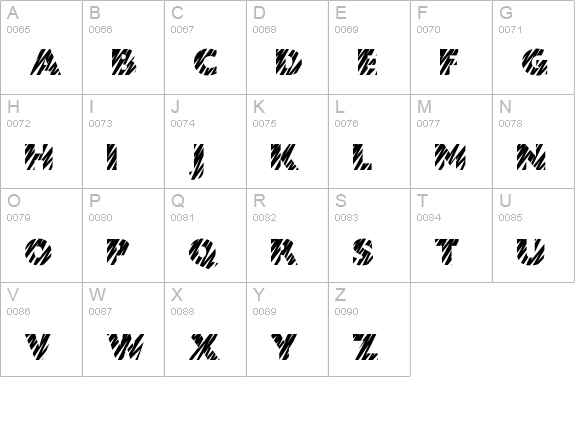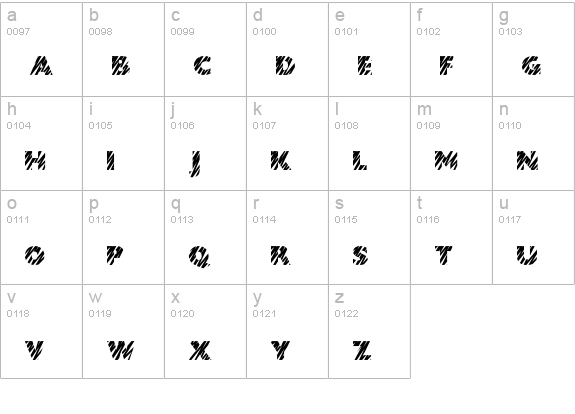
Zebratype Font Details
Introducing Zebratype font - a modern and stylish typeface that exudes sophistication and elegance. This unique font is perfect for a wide range of design projects, from branding to editorial design. With its sleek lines and eye-catching look, Zebratype font will surely make your designs stand out. What's even better is that Zebratype font is available for free download at FontsMarket.com. Yes, you heard it right - you can get your hands on this stunning font without spending a penny. So why wait? Download Zebratype font now and elevate your design projects to the next level!